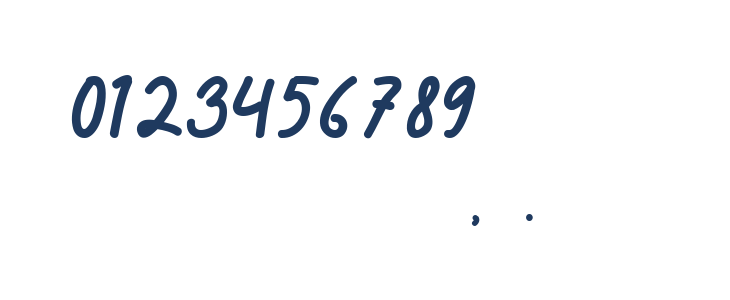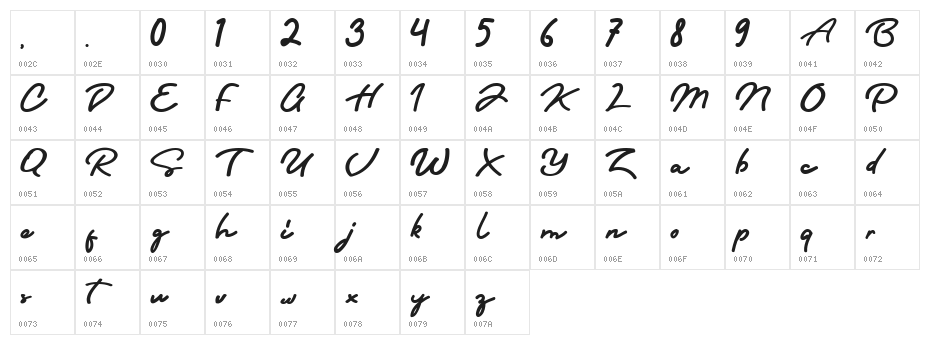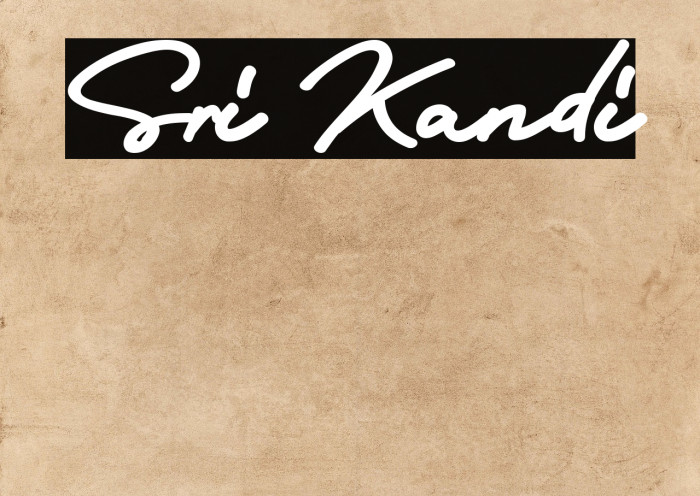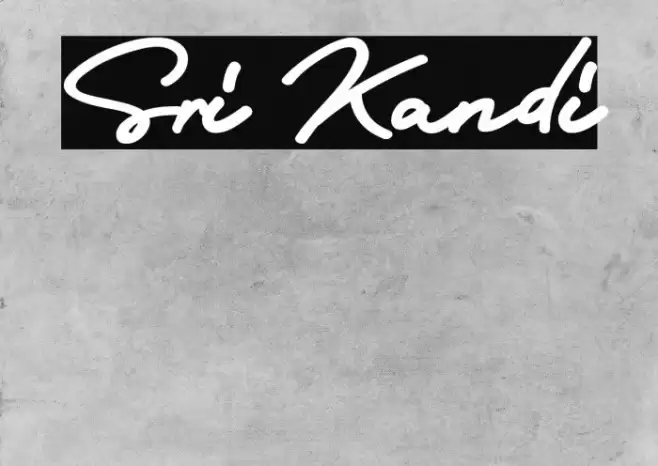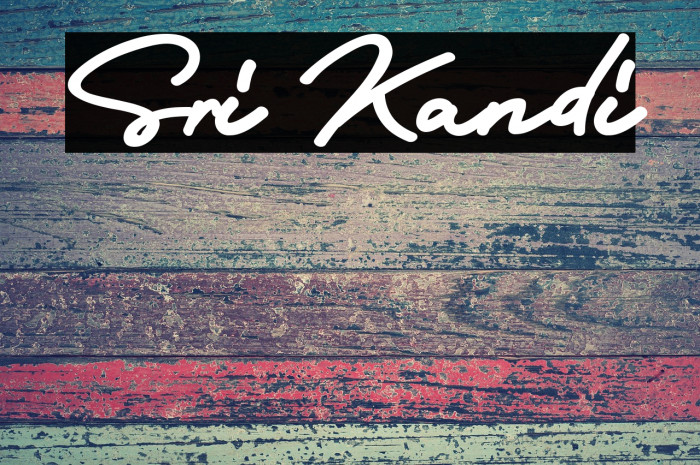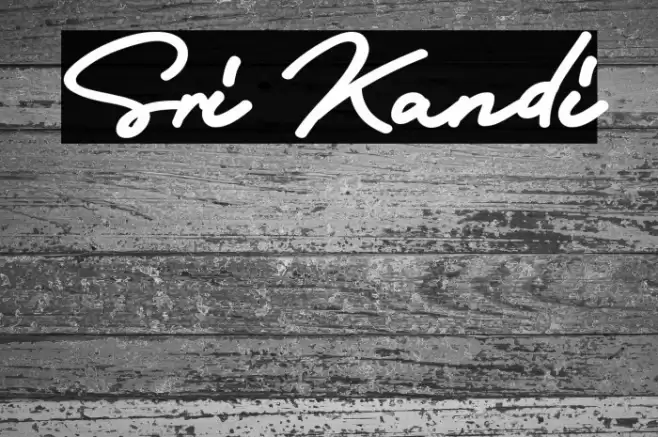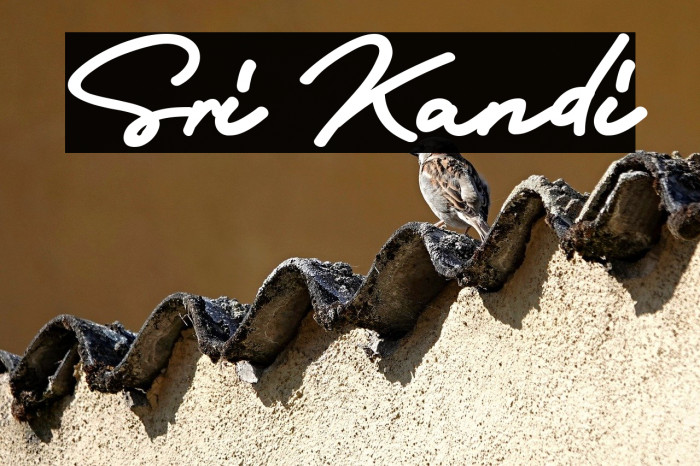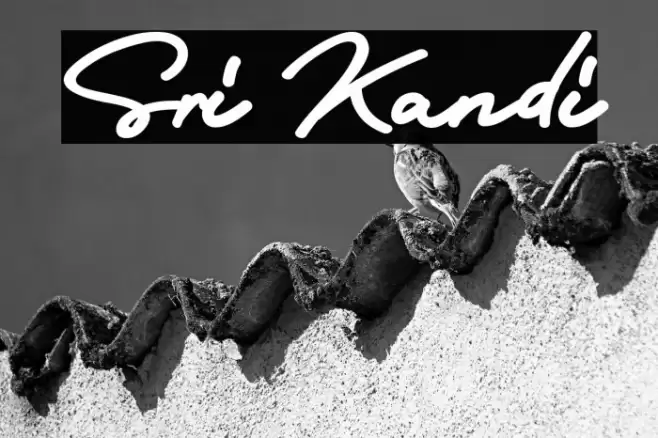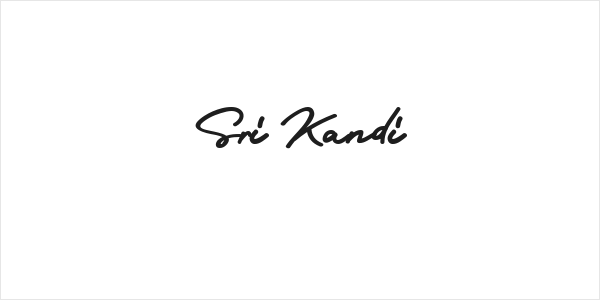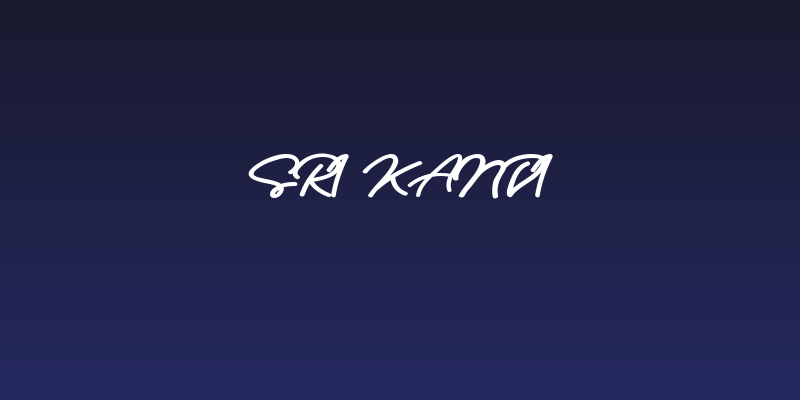
Sri Kandi Font
Sri Kandi Description
This font exudes a dynamic and fluid style, characterized by its cursive, handwritten appearance. The letters are connected, giving it a seamless and flowing look, reminiscent of elegant calligraphy. The uppercase letters maintain a consistent height, while the lowercase letters exhibit a playful bounce, adding to the font's charm. The numerals are bold and clear, ensuring readability. Special characters are integrated smoothly, maintaining the overall aesthetic. The font's strokes are moderately thick, providing a balanced contrast that enhances its legibility while preserving its artistic flair.